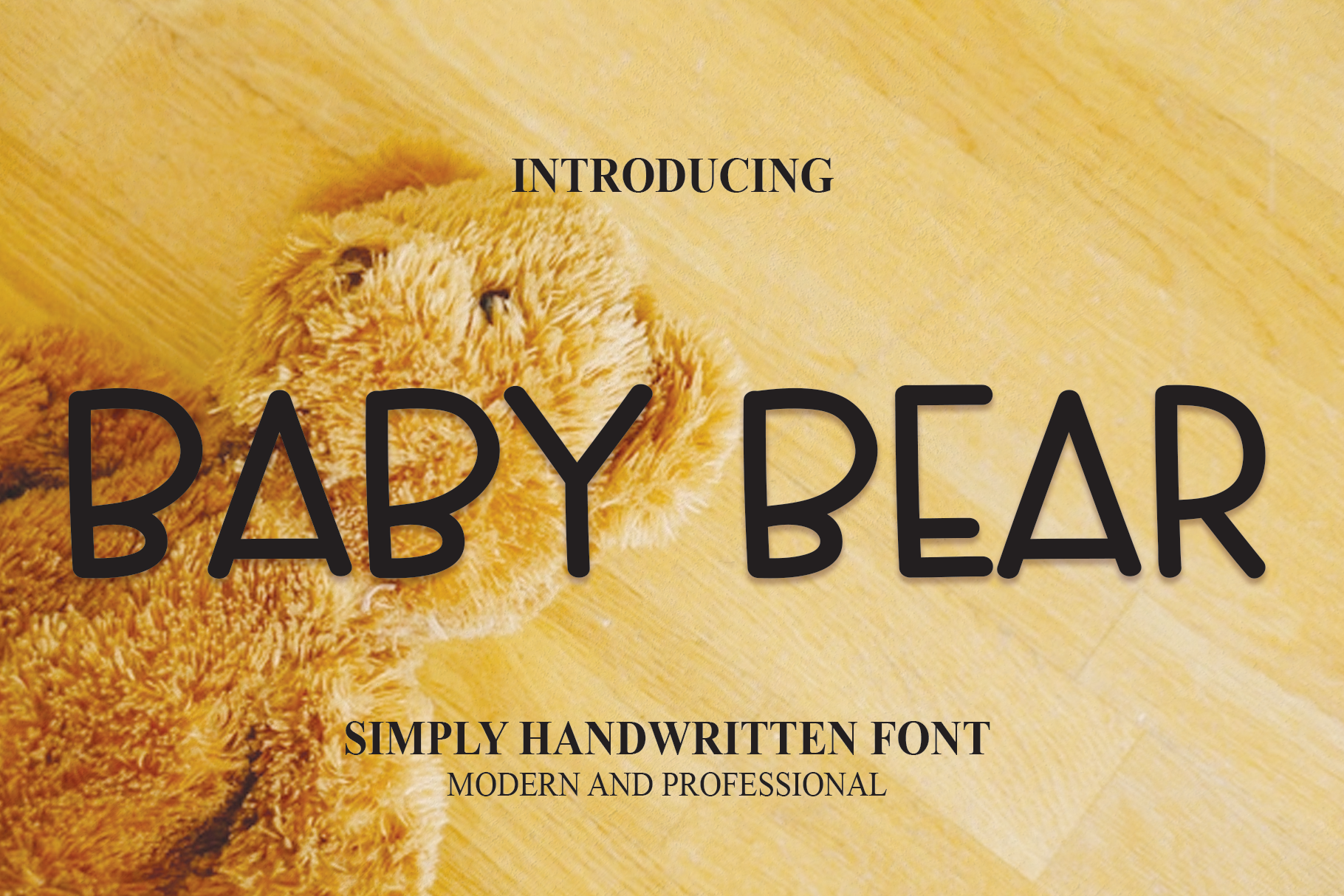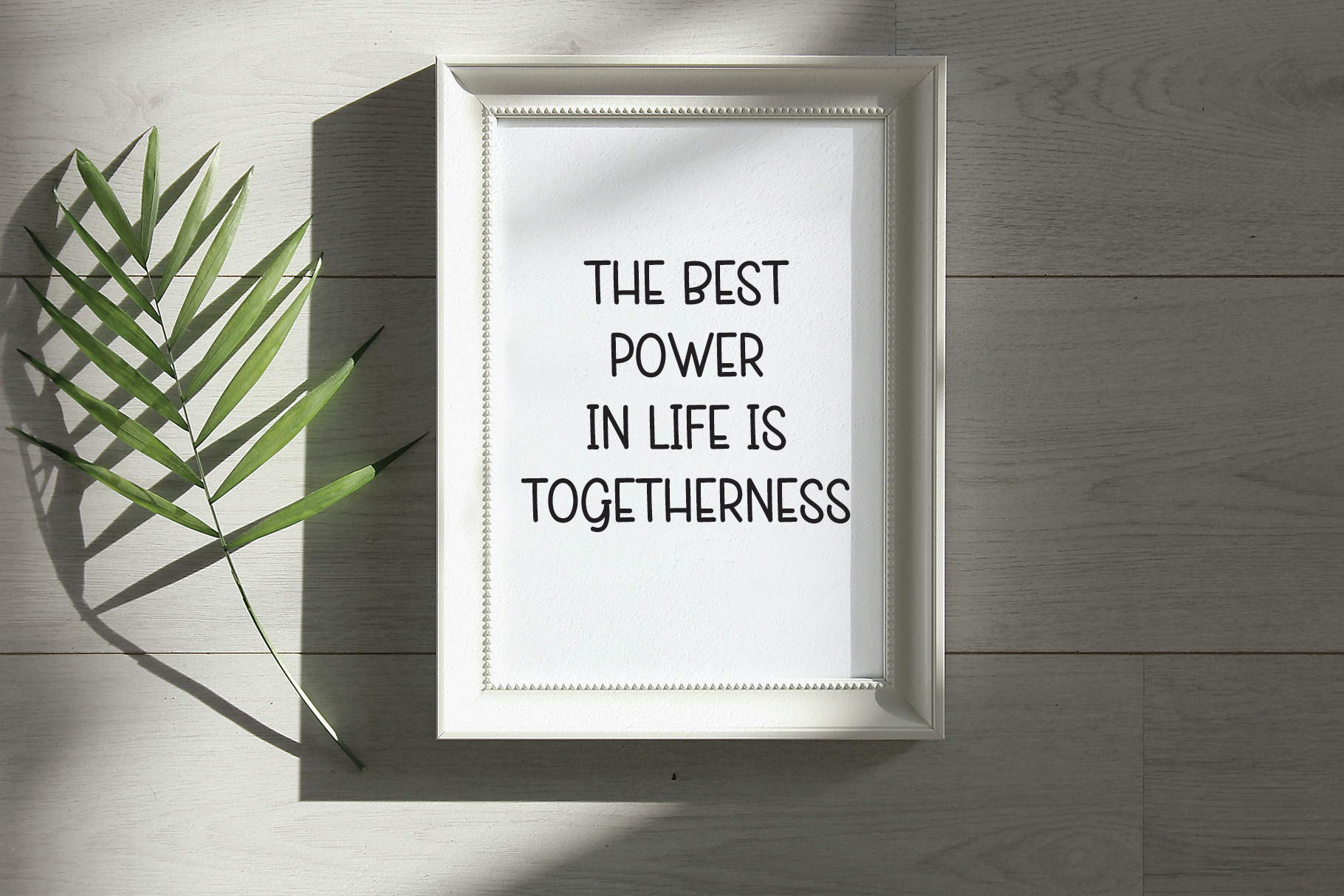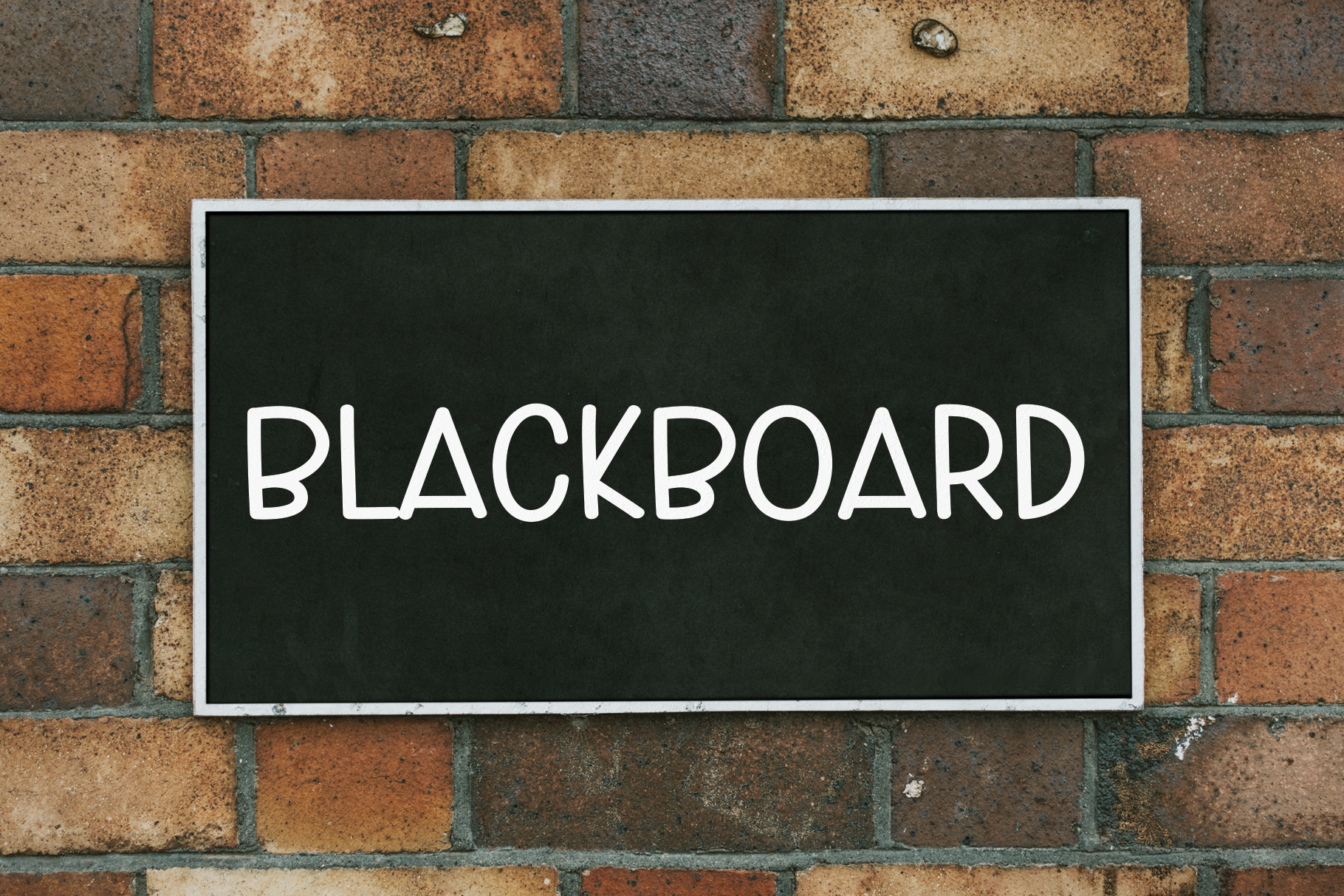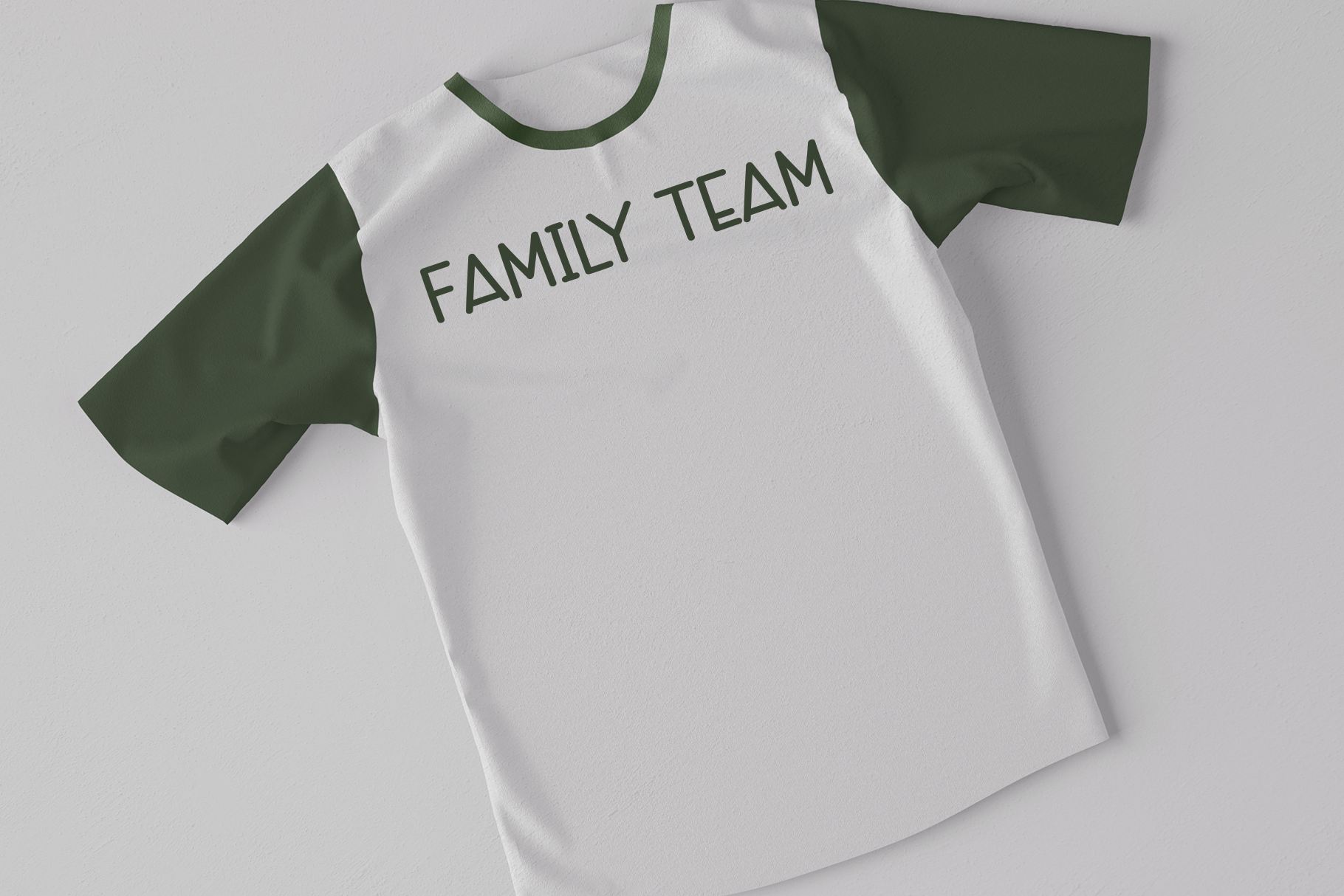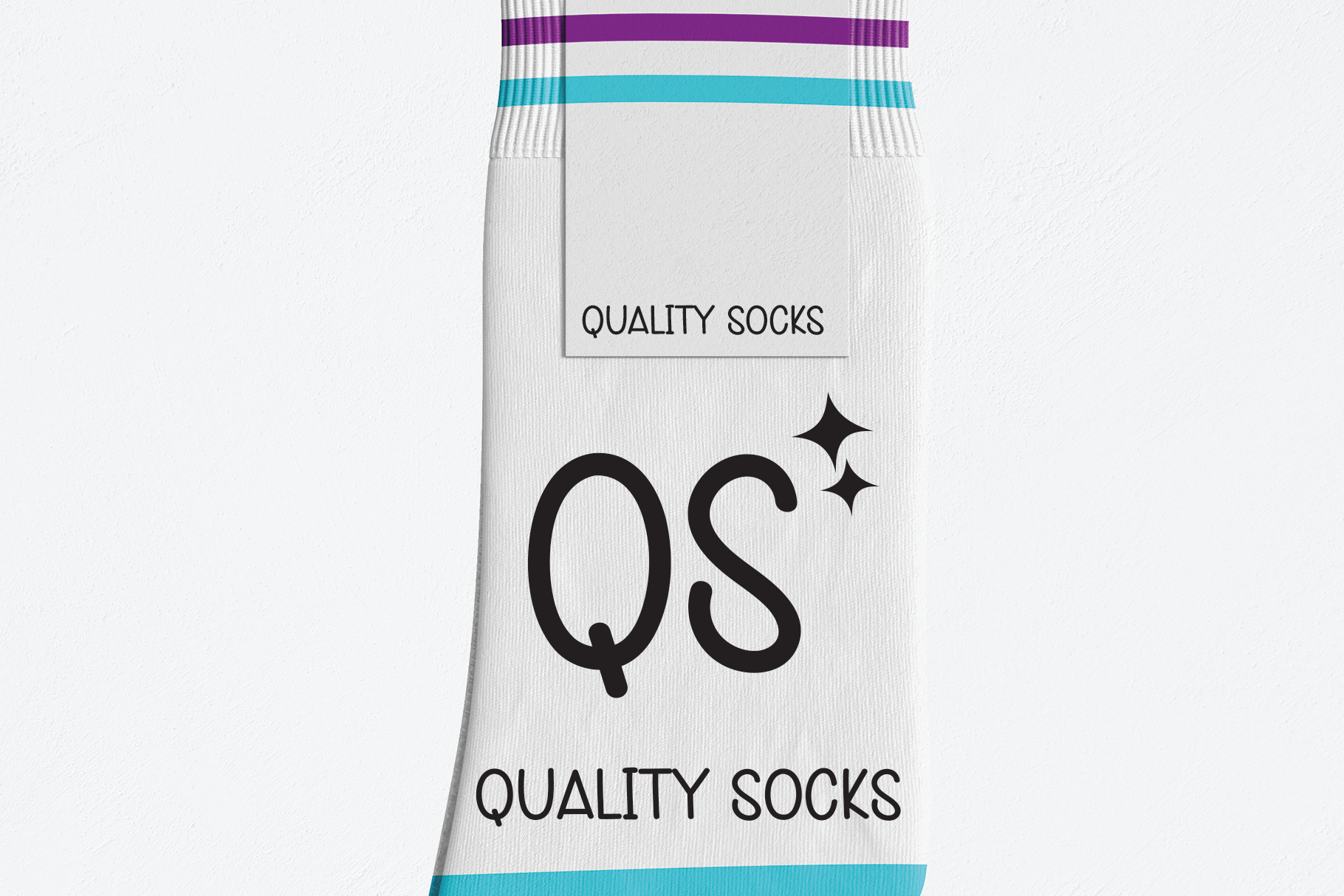
Baby Bear Display Font
This is a clean and natural script font. It is ideal for wall displays, wedding invitations, social media post logos, advertisements, product packaging, product designs, labels, photography, watermarks, invitations, stationery, and any project that requires a neat vibe.